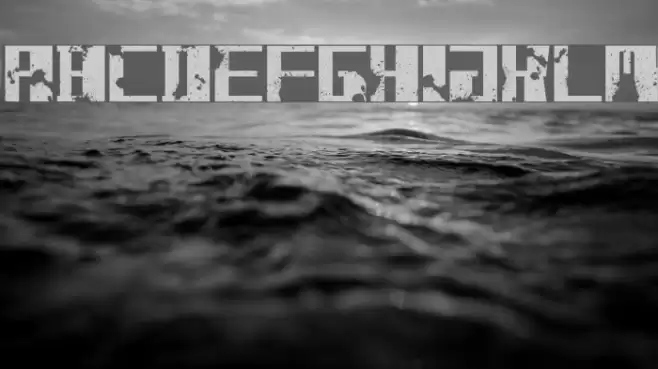
Gross Brush Font
Gross Brush Description
This font exhibits a rugged, distressed style with a brush-like texture that gives it a gritty and urban feel. The characters are bold and blocky, with irregular edges and a worn appearance, reminiscent of graffiti or street art. The uppercase letters are prominent and maintain a consistent height, while the lowercase letters follow a similar style, ensuring uniformity across the text. The numbers and special characters are designed to match the overall aesthetic, adding to the cohesive look. This font is ideal for projects that require a bold, eye-catching statement with an edgy, artistic flair.
A bold, distressed brush-style font with an urban, graffiti-like appearance from Uncategorized fonts.
- Proposed Projects: Perfect for street art designs, music album covers, event posters, and edgy branding projects.
- Overall Style: Urban, Artistic, Edgy